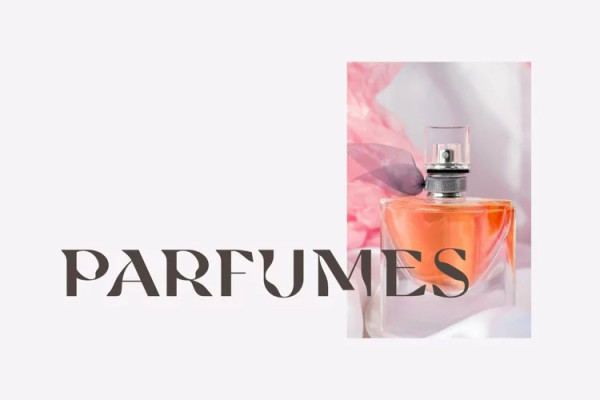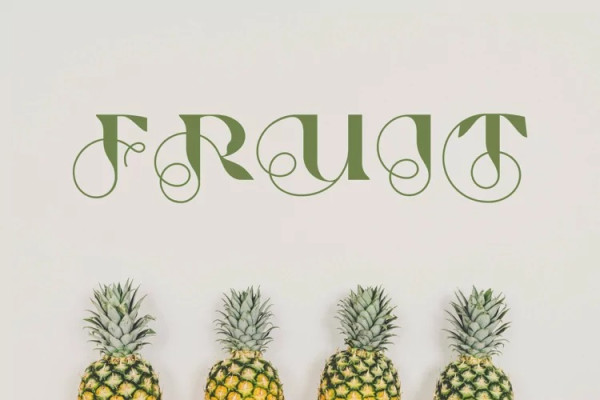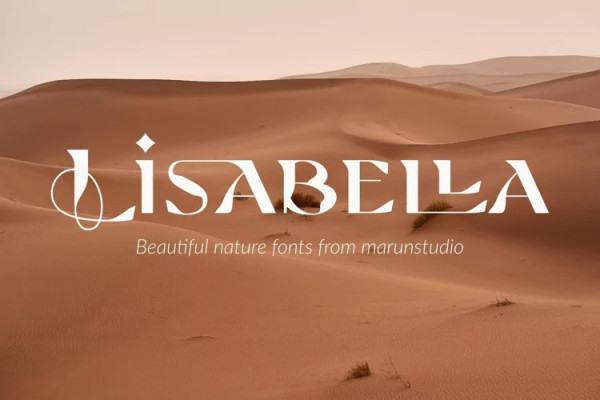
Lisabella Font
Lisabella Font is a carefully crafted luxuries font mixed with natural beauty. Perfect for business purposes, branding and logos, signatures, product packaging, titles, body text, invitations, stationary, advertisements, and more.